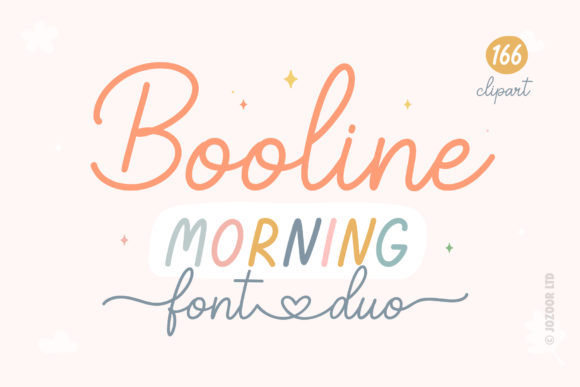
Introducing Booline Morning Font: The Perfect Handwritten Font for Romantic Projects
Are you looking for a font that exudes charm, delicacy, and romance? Look no further than Booline Morning Font. This duo-styled handwritten font is perfect for creating beautiful wedding invitations, save the date cards, fine art papery, feminine branding, personal gift cards, and any other romantic projects that require a touch of elegance.
What Makes Booline Morning Font Special?
Booline Morning Font is a unique and versatile font that feels equally charming and delicate. Its handwritten style gives it a personal and intimate feel, making it perfect for projects that require a touch of warmth and personality. The font’s duo-styled design means that it comes in two complementary styles, allowing you to mix and match to create a unique look that suits your project.
One of the standout features of Booline Morning Font is its romantic feel. The font’s delicate lines and curves evoke a sense of love and romance, making it perfect for wedding-related projects. Whether you’re designing a wedding invitation, save the date card, or ceremony program, Booline Morning Font is sure to set the tone for a beautiful and memorable occasion.
Ideal Uses for Booline Morning Font
Booline Morning Font is a versatile font that can be used for a wide range of romantic projects. Here are some ideal uses for the font:
- Wedding Invitations: Create beautiful and elegant wedding invitations that set the tone for your special day.
- Save the Date Cards: Design stunning save the date cards that will leave a lasting impression on your guests.
- Fine Art Papery: Add a touch of elegance to your fine art papery with Booline Morning Font’s delicate and charming design.
- Feminine Branding: Use Booline Morning Font to create a feminine and sophisticated brand identity that appeals to your target audience.
- Personal Gift Cards: Design beautiful and personalized gift cards that make thoughtful presents for friends and loved ones.
Why Choose Booline Morning Font?
There are many fonts available that claim to be romantic and charming, but Booline Morning Font stands out from the rest. Here are some reasons why you should choose Booline Morning Font for your next project:
- Unique Design: Booline Morning Font has a unique and distinctive design that will set your project apart from others.
- High-Quality: The font is designed with high-quality and precision, ensuring that it looks great in any size or format.
- Easy to Read: Booline Morning Font is easy to read and understand, making it perfect for projects that require clear communication.
- Versatile: The font is versatile and can be used for a wide range of projects, from wedding invitations to fine art papery.
Tips for Using Booline Morning Font
Here are some tips for using Booline Morning Font effectively in your projects:
- Pair with Other Fonts: Booline Morning Font looks great when paired with other fonts. Experiment with different combinations to find the perfect look for your project.
- Use in Combination with Images: The font looks great when used in combination with images. Use it to add a touch of elegance to your photos and illustrations.
- Experiment with Colors: Booline Morning Font looks great in a range of colors. Experiment with different colors to find the perfect look for your project.
Booline Morning Font is a beautiful and versatile font that is perfect for romantic projects. Its unique design, high-quality, and ease of use make it a great choice for anyone looking to add a touch of elegance to their project. Whether you’re designing a wedding invitation, save the date card, or fine art papery, Booline Morning Font is sure to impress.